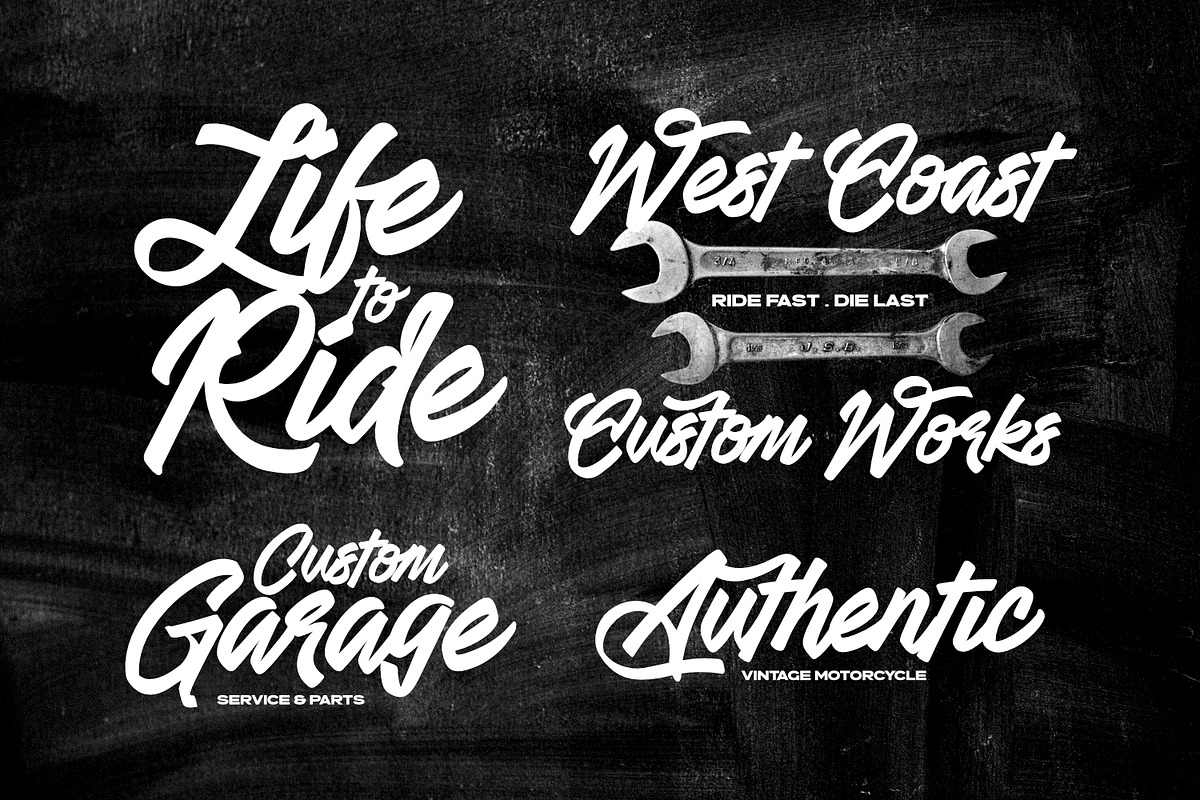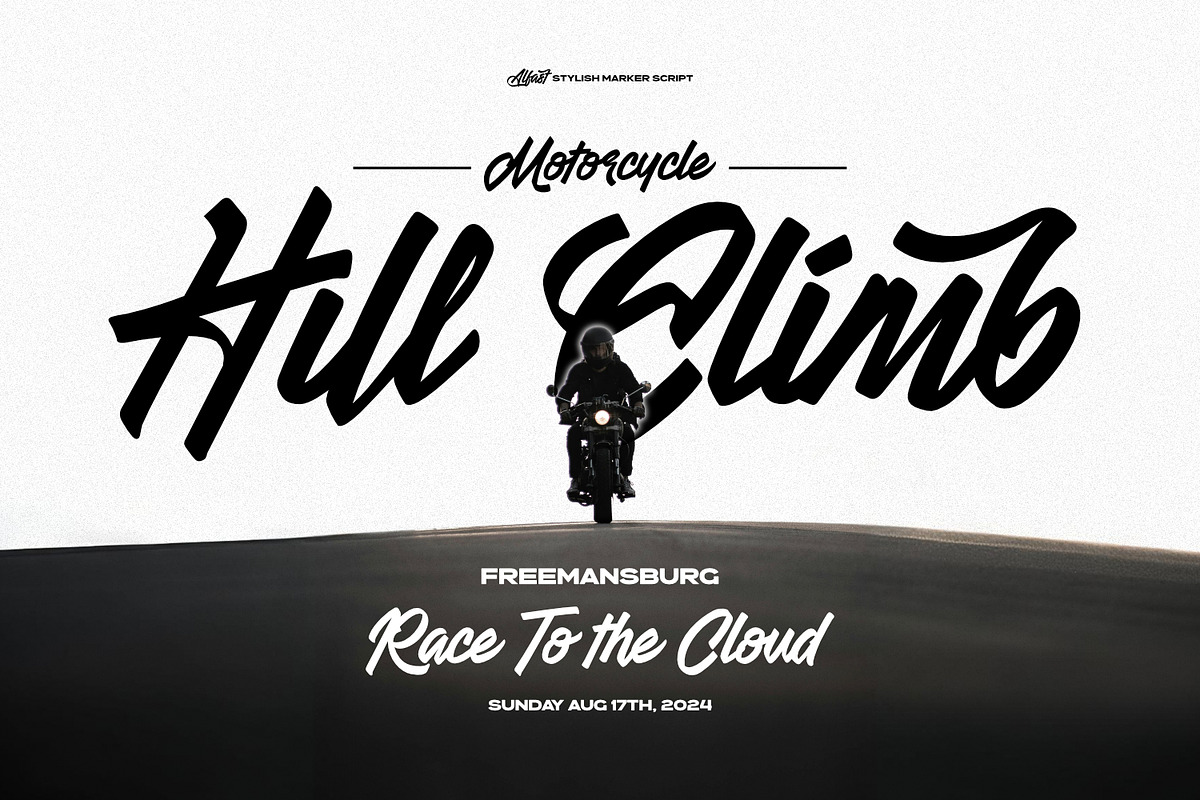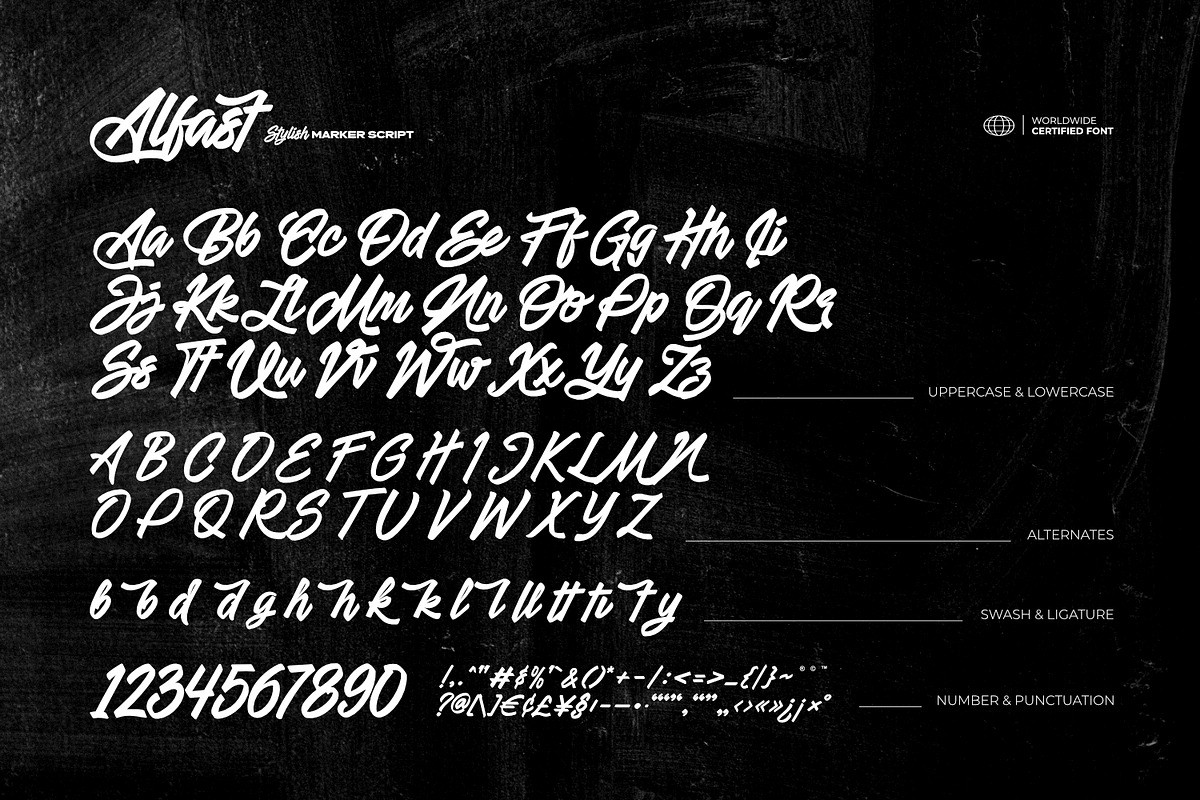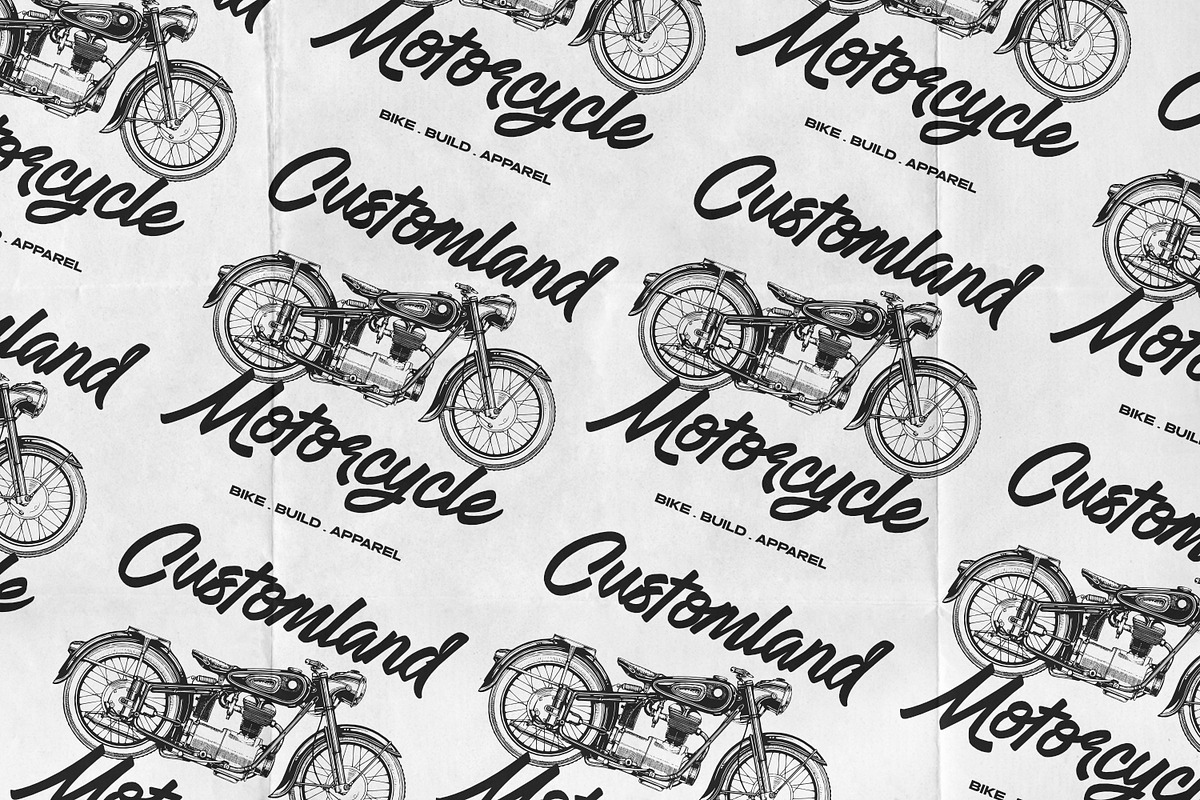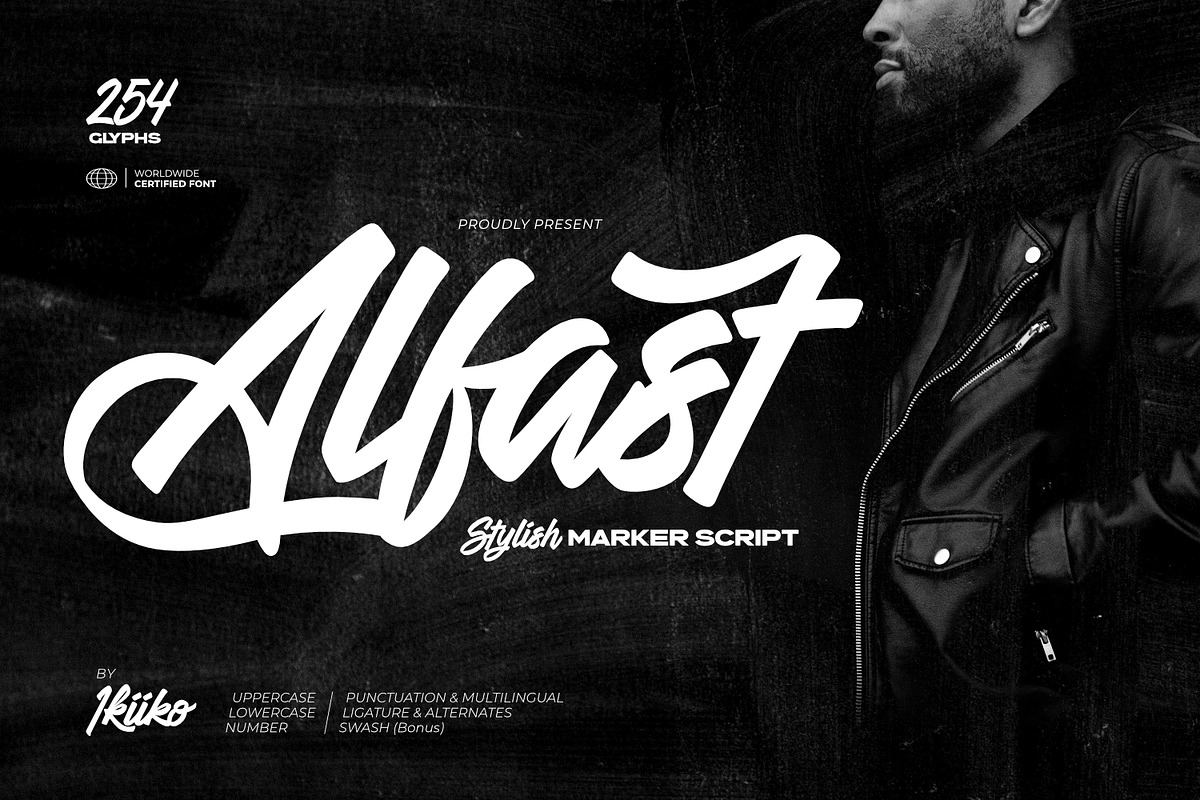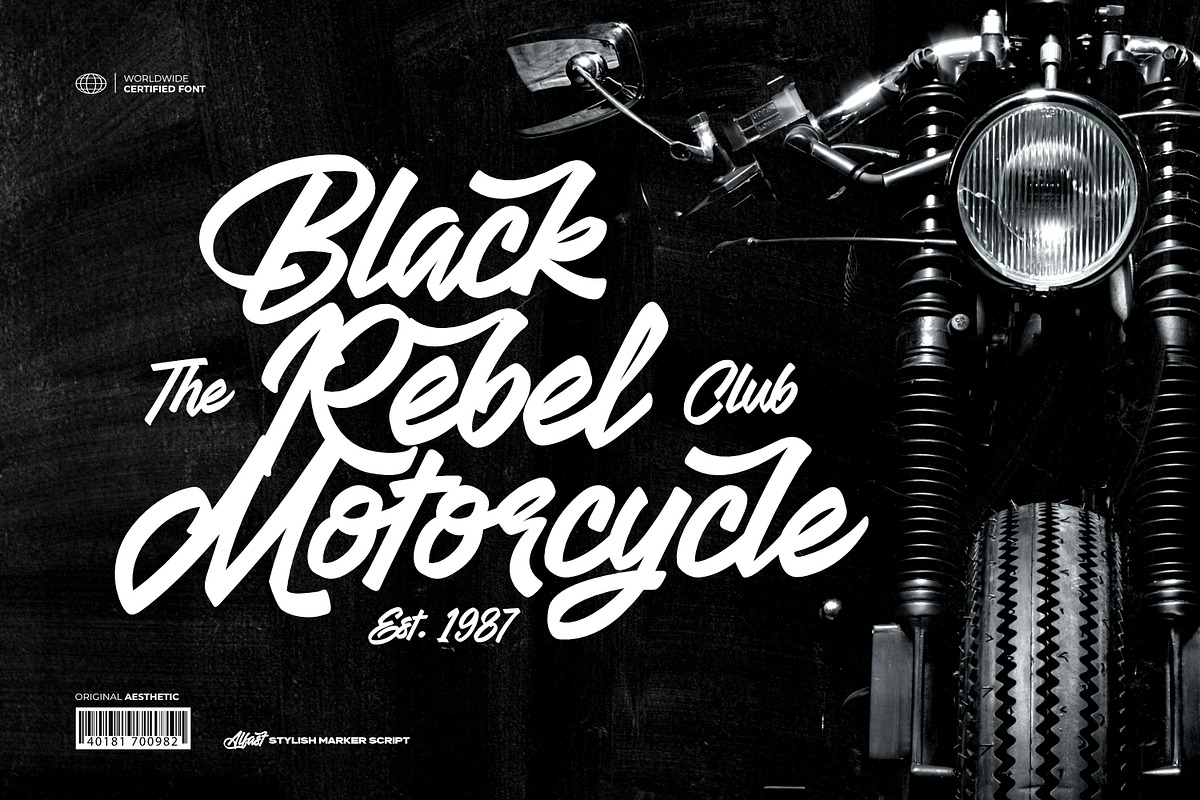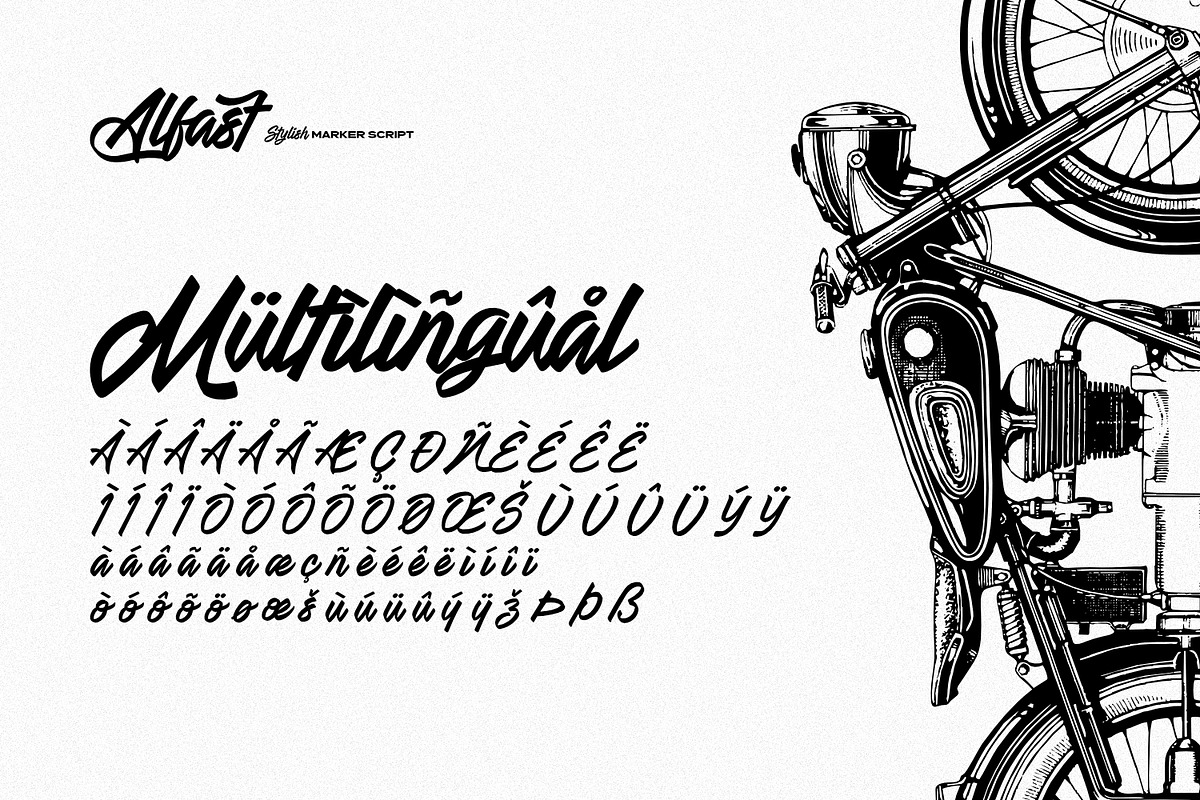
Alfast - Stylish Marker Script
Proudly present Alfast - Stylish Marker Script, created by ikiiko.
Alfast is a bold and dynamic font that embodies the fluid and organic strokes of a marker. Characterized by its hand-drawn appearance, the font features smooth, flowing curves and connected letters, enhancing its natural and handwritten feel.
Its thick and prominent weight ensures high visibility and a strong presence, making it ideal for designs that need to stand out. This versatile font is perfect for a variety of creative applications. It's especially well-suited for branding, giving logos and business identities a rebellious, edgy, and artistic look.
This font is very suitable for making a poster design, vintage logo, movie title, headline, apparel, magazine layout, fashion & street wear, quotes, or simply as a stylish text overlay to any background image that creating striking titles and headings that demand attention.
- Number & Punctuation
- Alternates & Ligature
- Swash (Bonus)